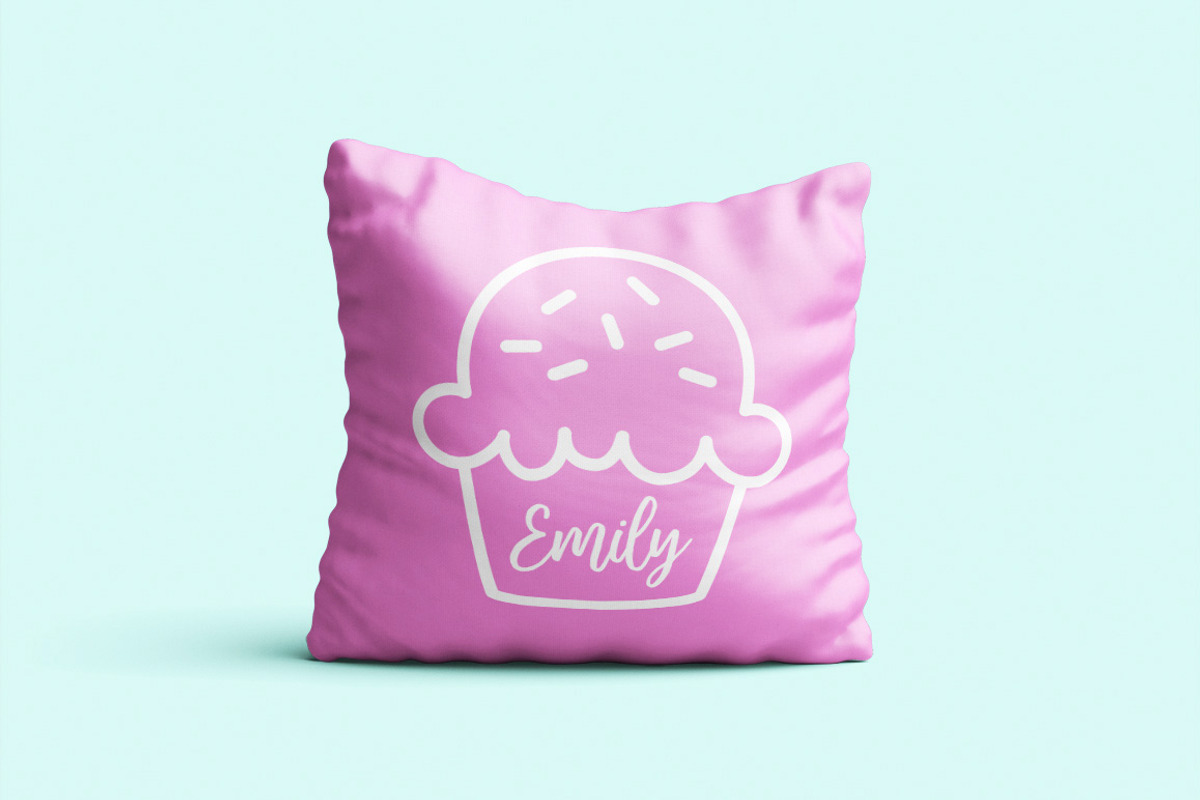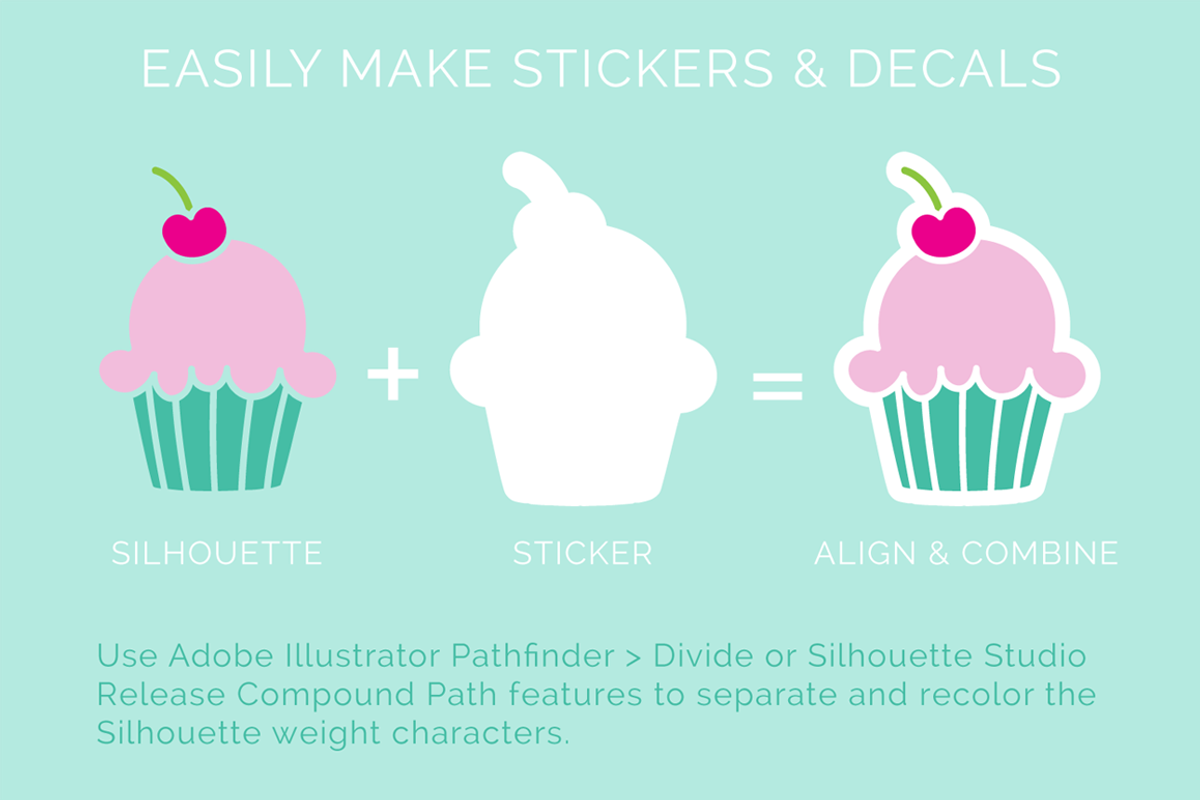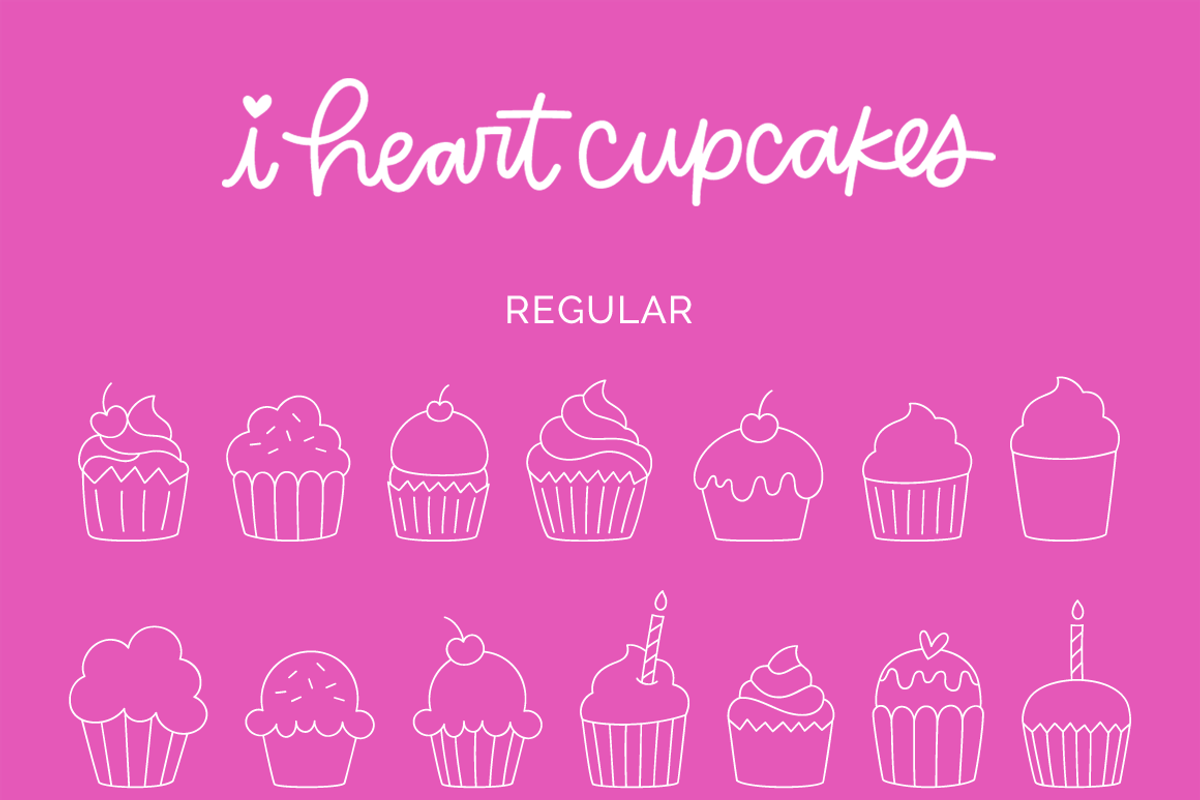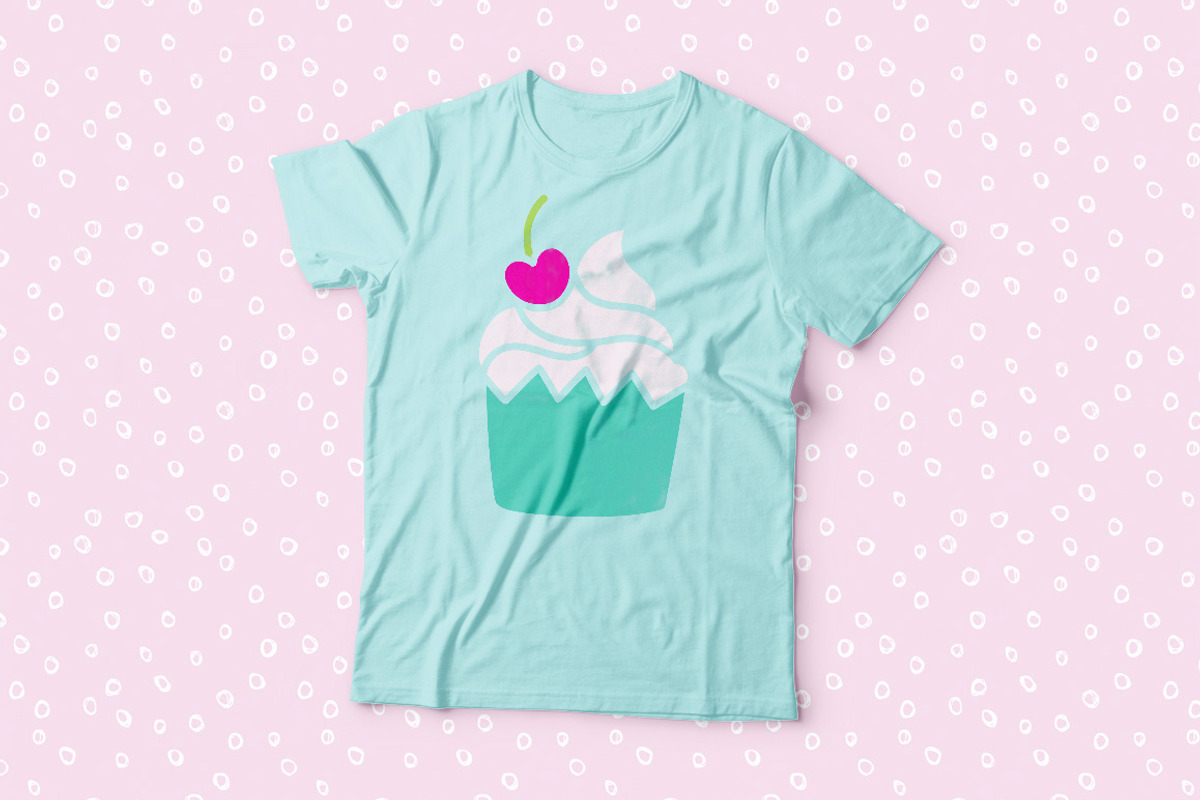
I Heart Cupcakes Dingbat Font
This delicious dingbat font includes 26 sweet, hand drawn cakey confections at 5 different styles that will allow you to easily create everything from logos and coloring pages to stationery, patterns, home decor, stickers, decals, and more. Pssst ... there are a couple of pieces of cake, too!
I Heart Cupcakes Regular : perfect for creating images for coloring, as well as logos and icons
I Heart Cupcakes Bold : a bolder line weight that's just the thing for cutting vinyl and cardstock on lots of different die cutting machines.
I Heart Cupcakes Silhouette : filled versions of the images are totally sweet for everything from t-shirts to stickers, decals, and graphics for stationery and invitations.
I Heart Cupcakes Sticker : combine with Silhouette to create super cool stickers, decals, and embellishments.
I Heart Cupcakes Sketch : designed especially for use with digital die cutting machines that have a sketch pen option.